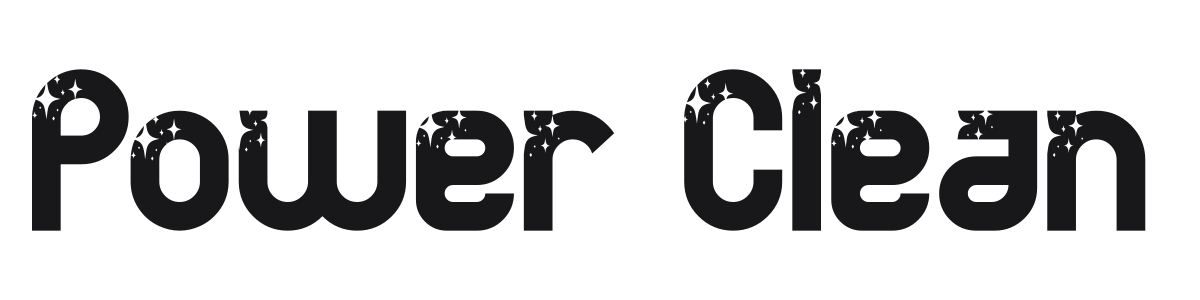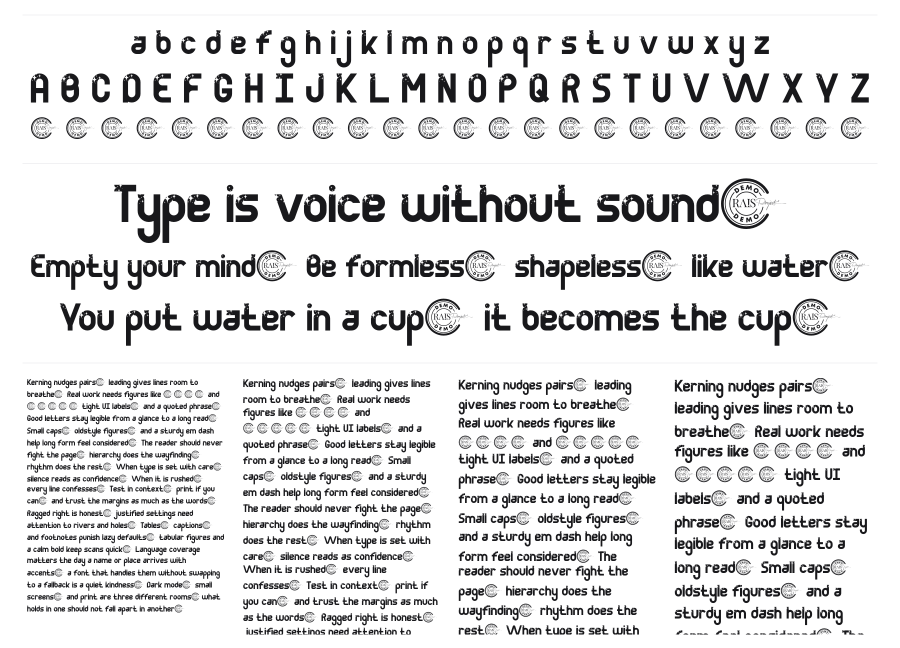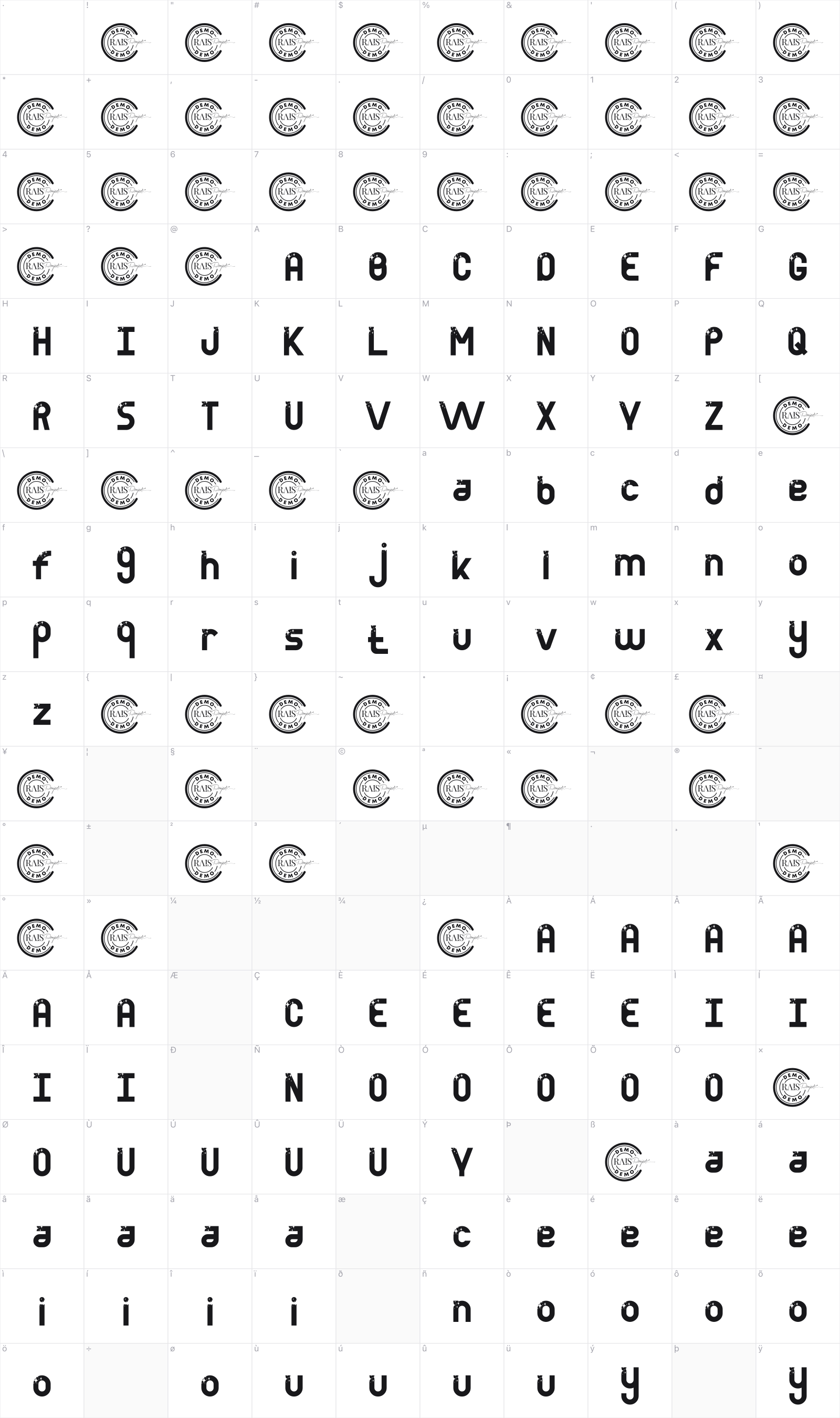
Power Clean
Power Clean is a bold distressed sans-serif with a gritty, street-ready attitude. Its heavy rounded construction is layered with scattered star-shaped texture marks that give it a worn, dirty edge while keeping the underlying forms highly legible at large sizes. The contrast between clean geometry and rough surface makes it a strong choice for music, sports, and urban branding.